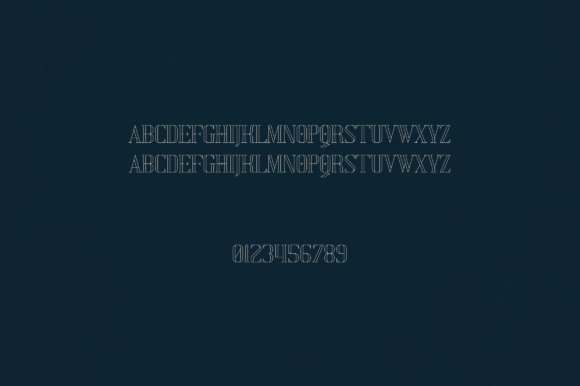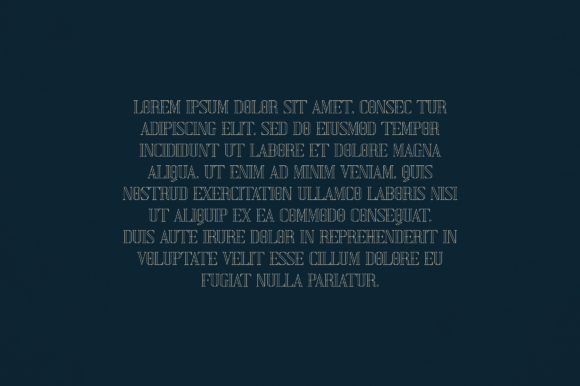
Introduction to Gisele Font
As a designer, have you ever been stuck on a creative project, searching for that perfect font to elevate your design to the next level? I know I have. The struggle is real, especially when you’re working on a tight deadline and every minute counts. That’s why I’m excited to introduce you to the stunning Gisele Font, a high-quality display font that’s sure to make your typography stand out.
Gisele Font is more than just a pretty face; it’s a valuable resource for designers looking to add a touch of elegance and sophistication to their work. With its versatility and wide range of applications, from branding projects to home-ware designs, this font is a must-have for any creative project. And the best part? It’s available for free download, making it an accessible design resource for designers of all levels.
Key Features of Gisele Font
- High-quality, elegant design suitable for various creative projects, including invitations, logos, and more.
- Features a clean, sophisticated design with a unique aesthetic that sets it apart from other fonts.
Honest Review: Gisele Font
I recently came across the Gisele Font, and I must say it’s a great addition to any designer’s toolkit. As a design resource, it’s a fantastic option for those looking for a high-quality font to use in their creative projects.
The Gisele Font offers a range of styles and weights, making it suitable for a variety of design applications. One of the standout features is its transparent background, which allows for seamless integration with any design element.
- High-quality design with crisp lines and clear typography
- Range of styles and weights for versatility
- May not be suitable for very small text sizes
- Some users may find the font a bit too ornate for certain designs
Overall, I’m impressed with the Gisele Font. It’s a solid choice for designers looking for a reliable and high-quality font to use in their projects. While it may have some limitations, its benefits far outweigh its drawbacks. If you’re in the market for a new font, I’d definitely recommend checking it out.
Common Use Cases for Gisele Font
Gisele Font is a versatile design resource that can be used in a variety of creative projects, such as logos, brochures, and social media graphics. Its high-quality design and transparent background make it a great choice for designers who want to create visually appealing and professional-looking designs.